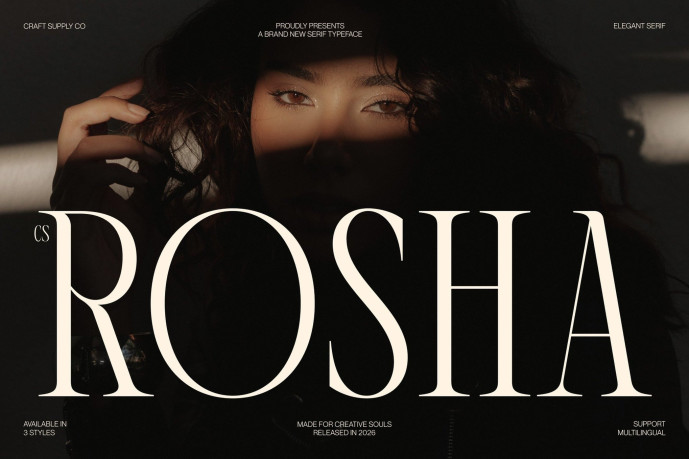
Rosha – Elegant Serif Font
Designer: Craft Supply Co.
CS Rosha – Elegant Serif Font: Where Refined Sophistication Meets Timeless Luxury Sleek Lines with Sophisticated Details This is an elegant serif font crafted for design projects that demand a professional, luxurious, and refined appearance. Its sleek lines, graceful serif details, and carefully balanced proportions create a polished visual identity that feels both timeless and contemporary. Every character is designed to communicate confidence, elegance, and exceptional craftsmanship.
Clean Structure with Controlled Contrast Built with a clean structure and controlled contrast, this font offers outstanding readability while maintaining a premium aesthetic. The balanced relationship between thick and thin strokes creates a harmonious rhythm, allowing the font to appear sophisticated without becoming overly decorative. This refined construction makes it suitable for both striking headlines and elegant body text.
Timeless Style for Contemporary Design By combining classic serif elegance with modern precision, creates a distinctive visual identity that bridges tradition and contemporary sophistication. Its refined forms convey professionalism and luxury, making it a versatile choice for creative projects that seek lasting visual impact and understated beauty.
Perfect for Wedding Invitations, Editorial, and Premium Media CS Rosha is ideal for editorial design, advertising, print materials, digital media, magazine covers, luxury packaging, fashion identities, logos, invitations, and other high-end creative projects. Its elegant letterforms make it perfect for typography that communicates refinement, credibility, and timeless sophistication.
Uppercase and lowercase characters
Accents (Supports Multilingual Characters)